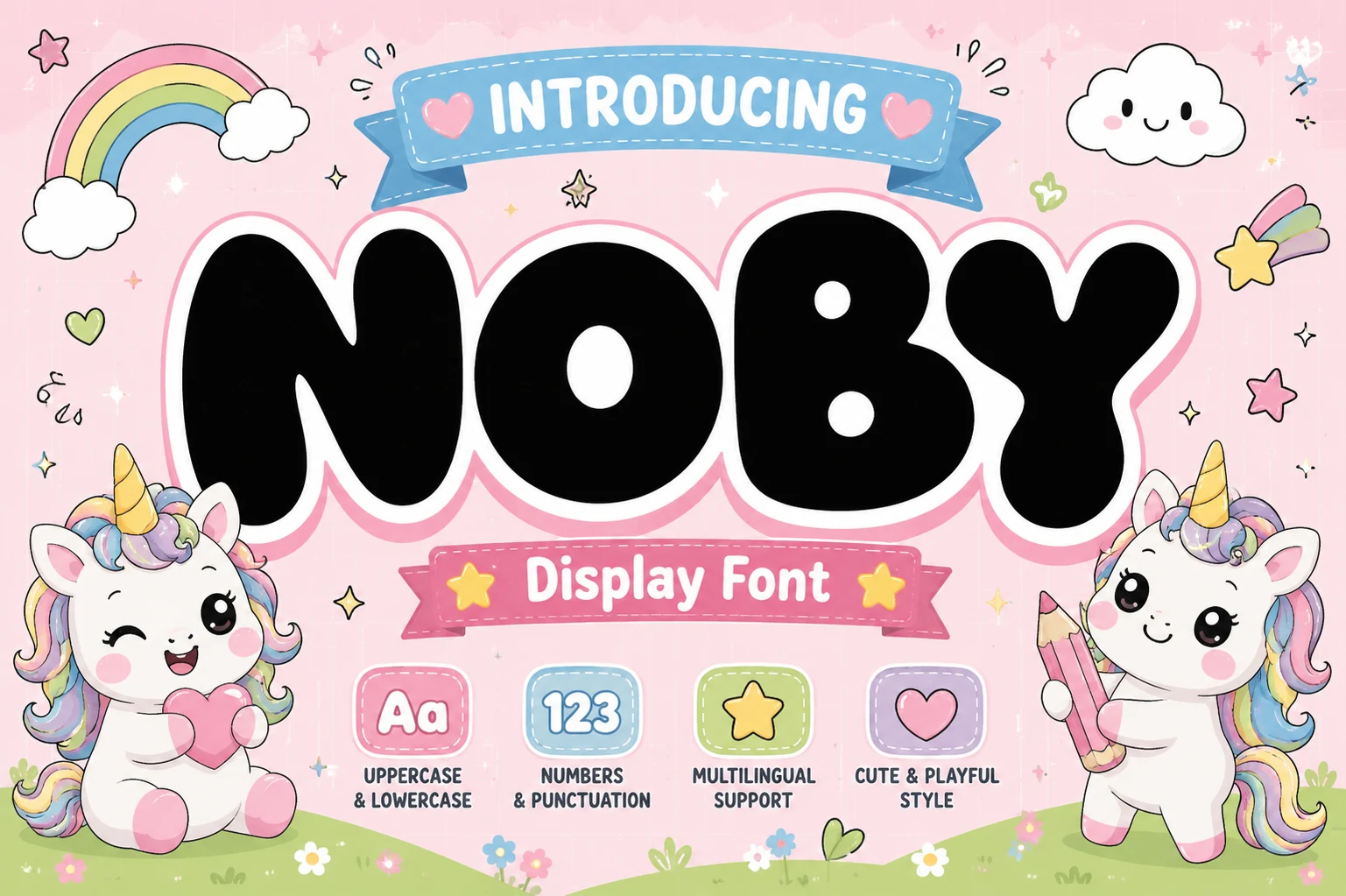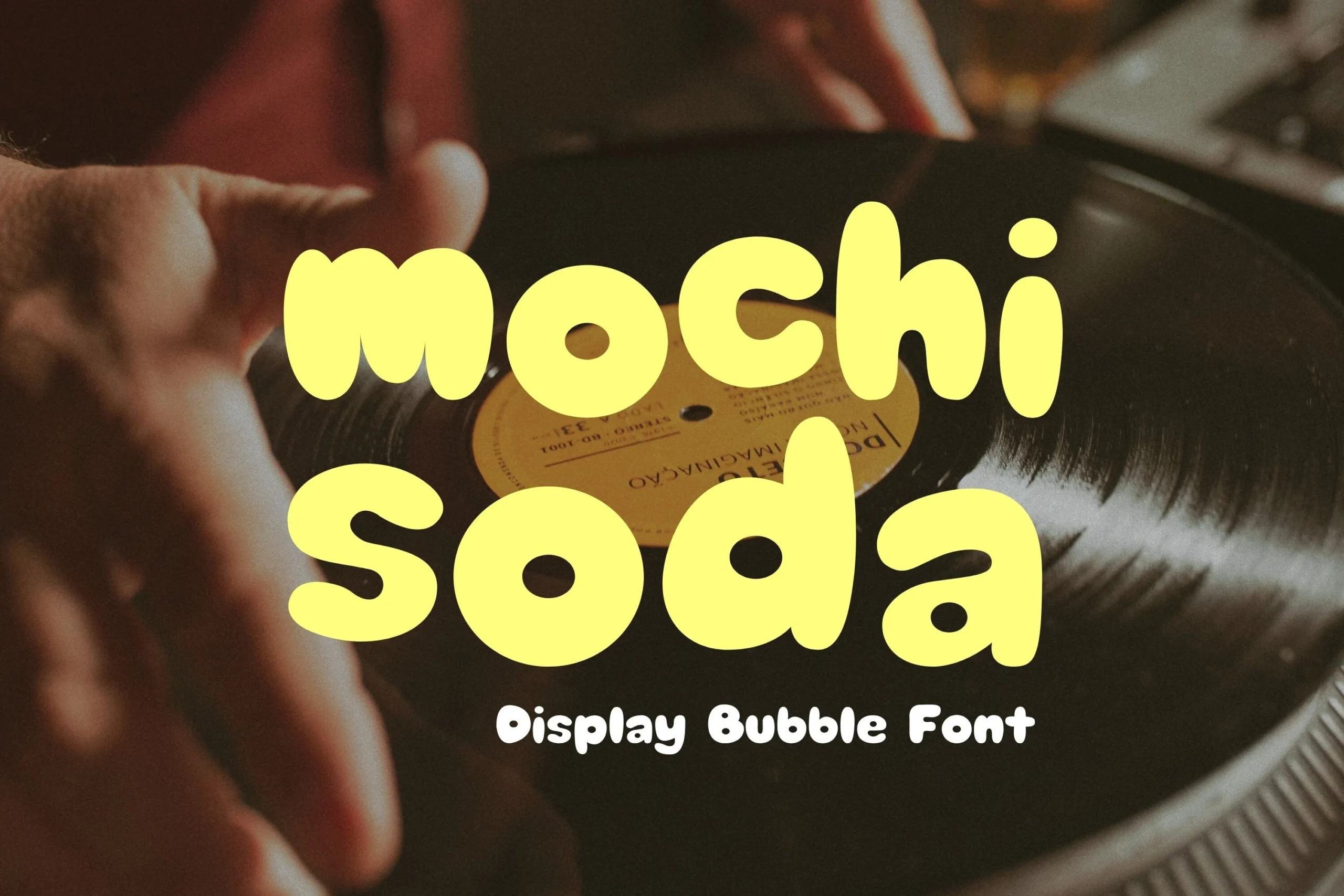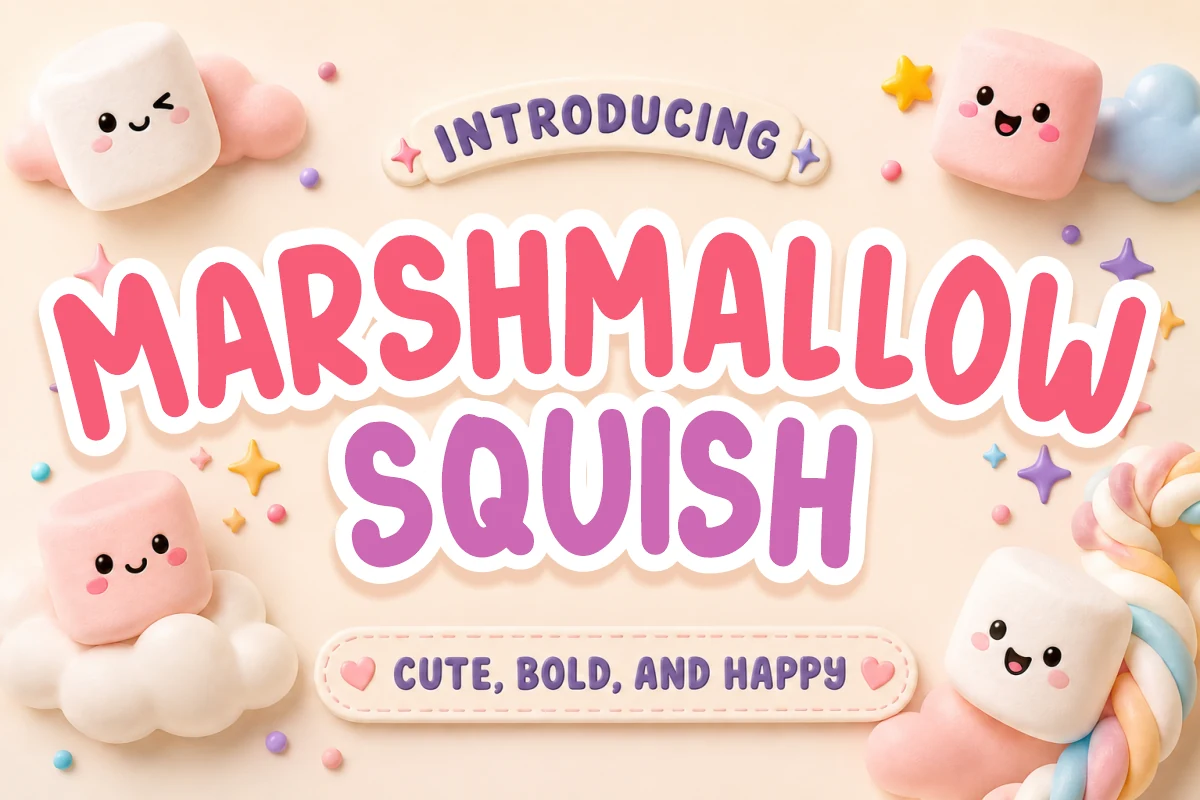
27 Creative Kawaii Fonts for 2026
This collection of Kawaii Fonts brings together cheerful bubble lettering, friendly handwritten styles, and playful character-inspired displays. Whether you are designing stickers, packaging, children’s projects, branding, social media graphics, invitations, or short headline text, these fonts add warmth and personality. Explore the categories below to find a soft, chunky, casual, or novelty style that suits your next creative project.
Rounded Bubble Kawaii Fonts
These bold, inflated letterforms use soft curves and chunky proportions to create instantly cheerful displays for stickers, packaging, labels, branding, and children’s designs.
Tofu Twist Font
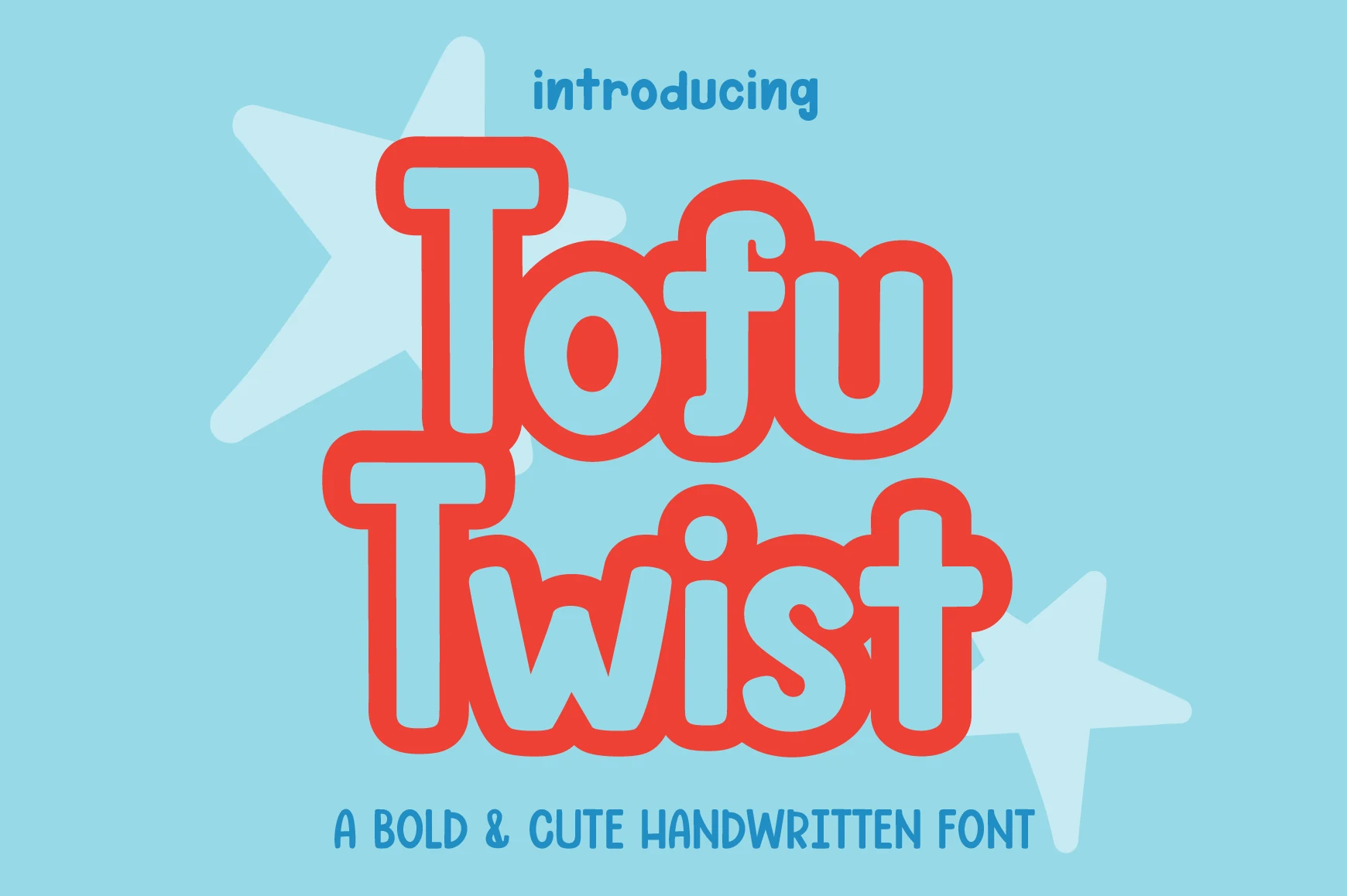
Best For: stickers, packaging, children’s designs, cute designs
Tofu Twist is a chunky handwritten display face with thick, monoline strokes, rounded terminals, and sturdy slab-like ends. Its upright forms and friendly proportions keep letters clear while giving titles, stickers, and children’s designs a cheerful, tactile presence.
That bubbly character makes it a natural fit for Kawaii Fonts collections, especially on short phrases, packaging, and social media graphics. Keep tracking slightly open so the heavy shapes do not crowd one another, and use a clean, contrasting background when the lettering needs to read quickly.
Pipo Soda Font
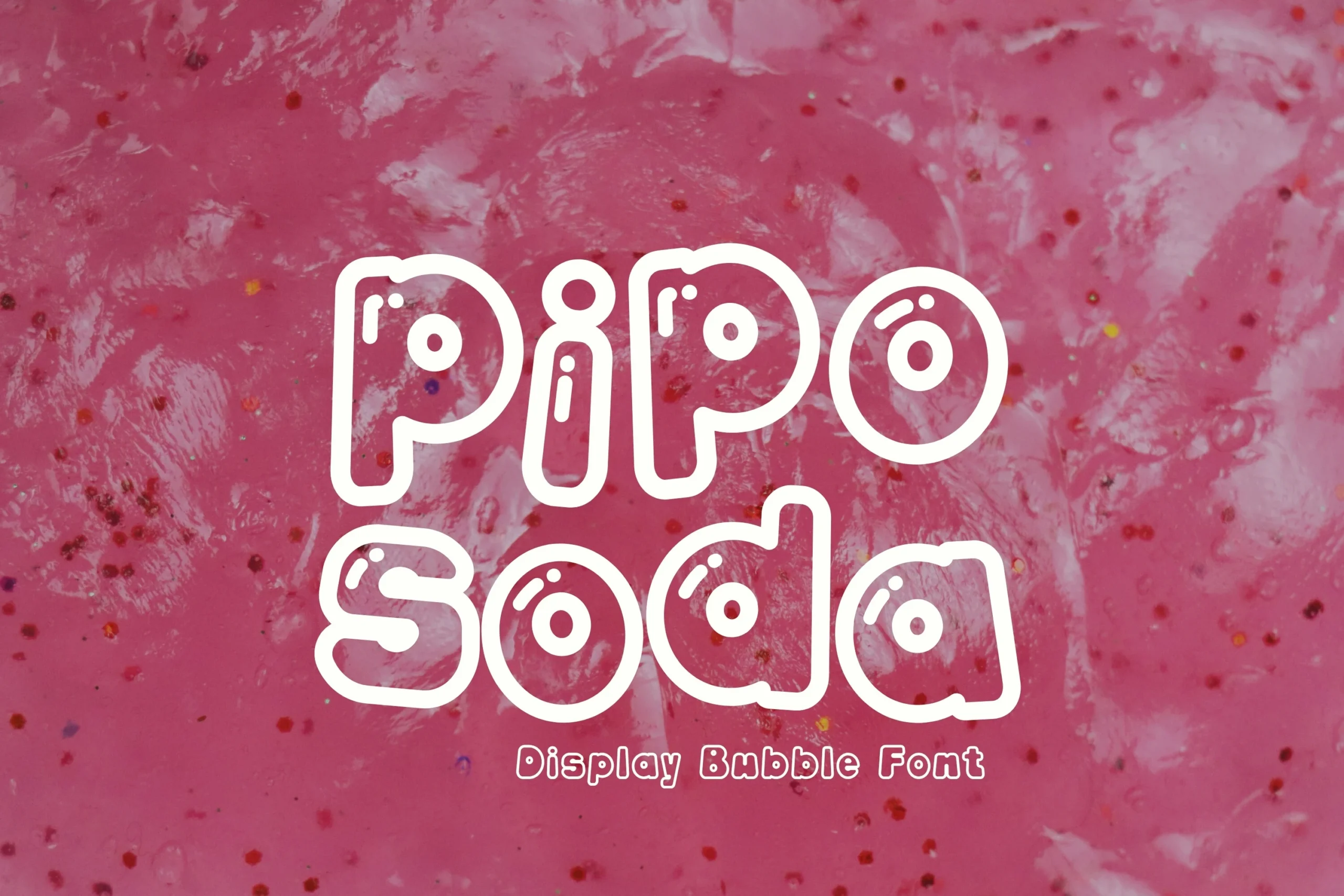
Best For: cute designs, playful designs, stickers, product labels
Pipo Soda is a cheerful bubble display font built from thick, monoline letterforms with soft rounded corners and pronounced circular cutouts. Its upright, disconnected shapes create a youthful cartoon feel, making it a natural fit within Kawaii Fonts and other playful visual styles.
The generous interior spaces keep short words clear at display sizes, though dense paragraphs may feel crowded. Use it for titles, stickers, or labels, and pair it with a lighter supporting sans serif to create a clear title hierarchy without competing with its rounded forms.
Bubblu Font
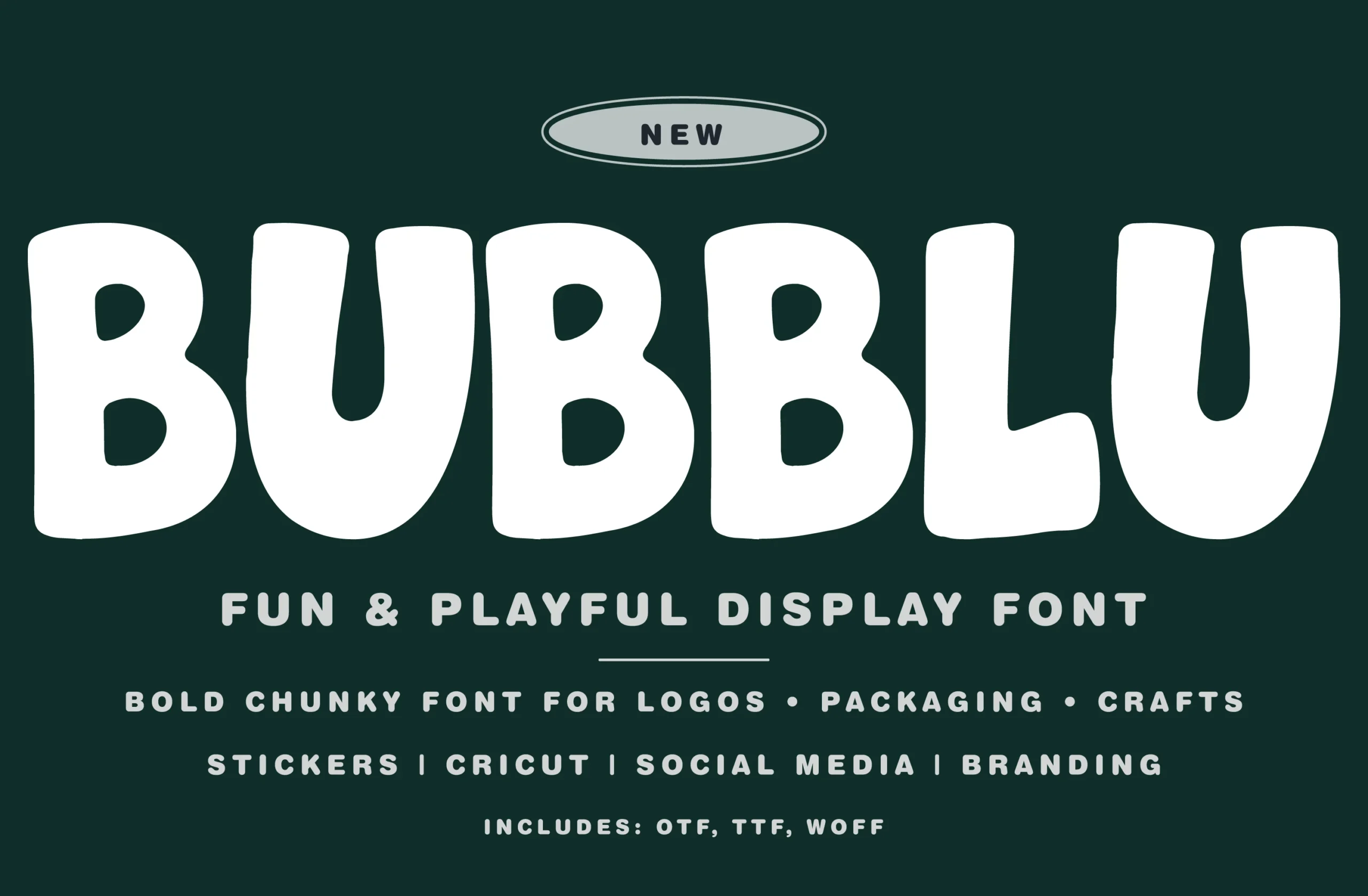
Best For: logos, branding, packaging, product labels
Bubblu Font turns thick, monoline strokes into wide, chunky lettering with soft rounded terminals and irregular organic curves. Its friendly bubble shapes and steady vertical structure give headlines a playful presence, making it a natural fit among Kawaii Fonts for cheerful visual work.
The heavy forms stay clear at display sizes, while their broad proportions can crowd narrow layouts. Keep tracking slightly open and use a lighter, clean supporting weight to preserve hierarchy; for small text, choose simpler lettering so Bubblu remains the visual anchor.
Kawaii Ghost Font
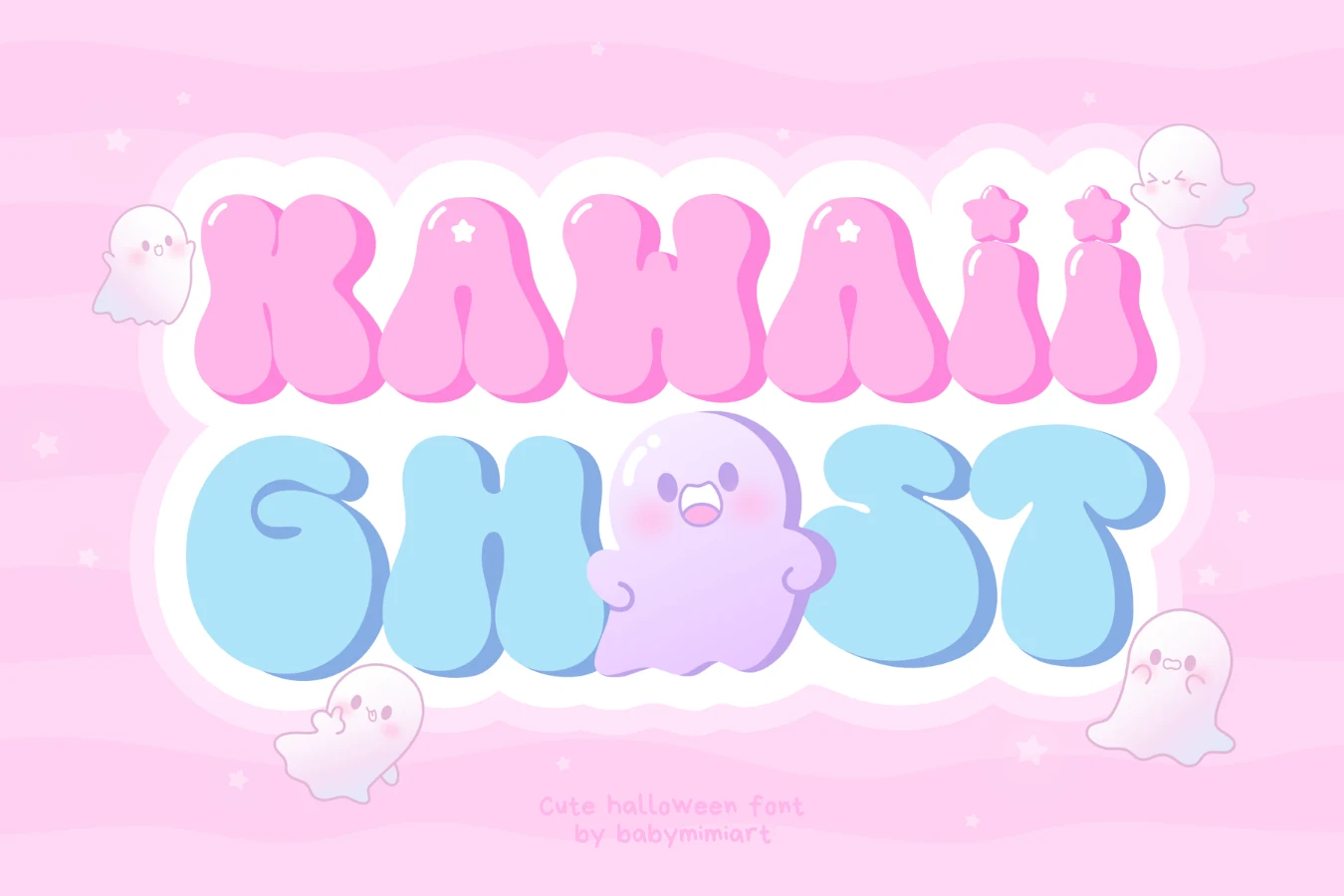
Best For: cute designs, children’s designs, logos, stickers
Kawaii Ghost Font captures the playful appeal associated with Kawaii Fonts through thick, rounded bubble letters and soft, irregular contours. The uniform weight keeps the shapes bold, while star-shaped accents on the lowercase i add a whimsical detail suited to children’s books, friendly logos, and greeting cards.
Its inflated forms are clearest at display sizes, as the limited interior space can reduce readability when scaled down. Use modestly open tracking and strong background contrast, especially for short headings, stickers, packaging, or other compact compositions.
Kai Font
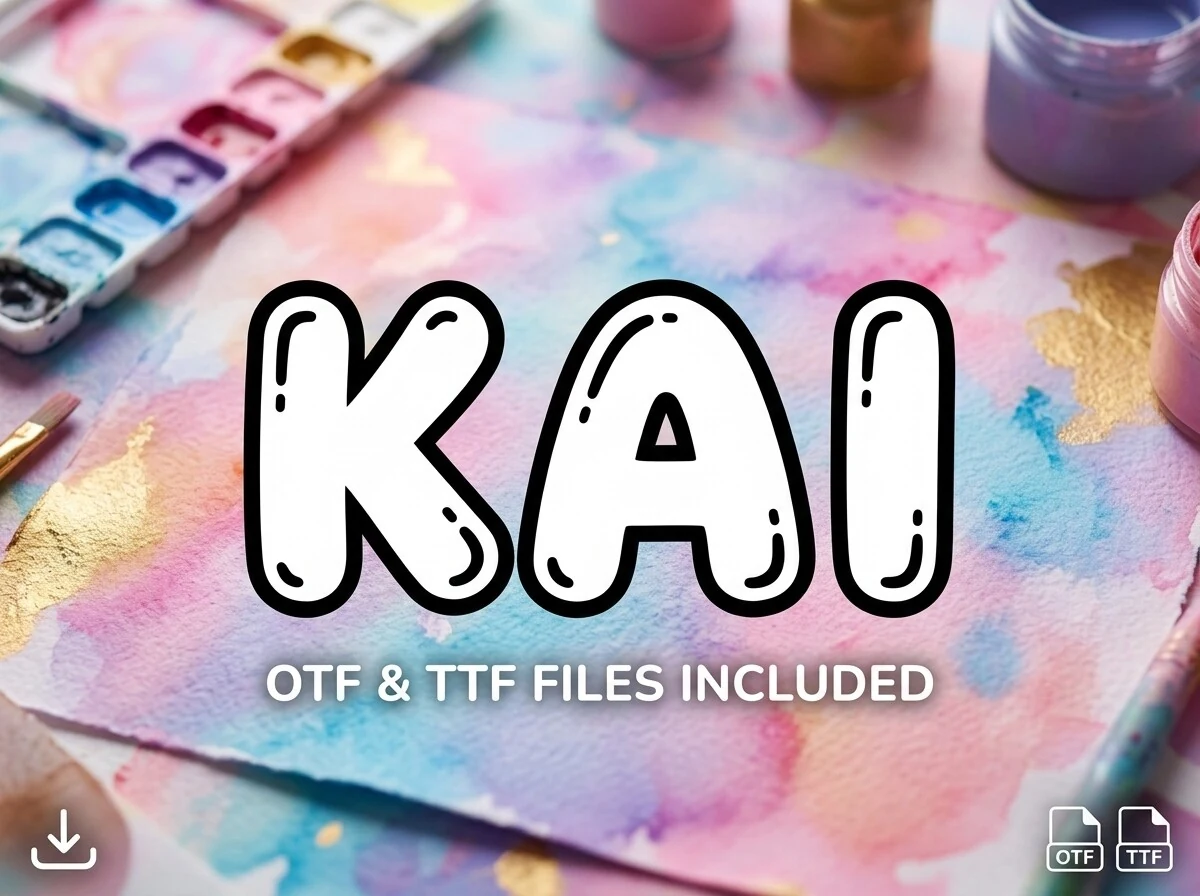
Best For: children’s designs, playful designs, social media graphics, display text
Kai Font turns lettering into rounded, inflated shapes with a monolinear weight, soft corners, inward-curving stems, and bold outer and inner outlines. Glossy balloon-like highlights add a cheerful 3D effect, while the disconnected characters keep the style casual and cartoon-inspired. It fits naturally among Kawaii Fonts when a design needs a friendly, youthful voice.
The heavy silhouette stays clear at display sizes, but its thick outline can crowd counters when reduced. Keep tracking slightly open and reserve Kai for short titles, labels, or prominent headers; use a lighter supporting text weight to maintain hierarchy and preserve contrast against the background.
Cute Pop Font
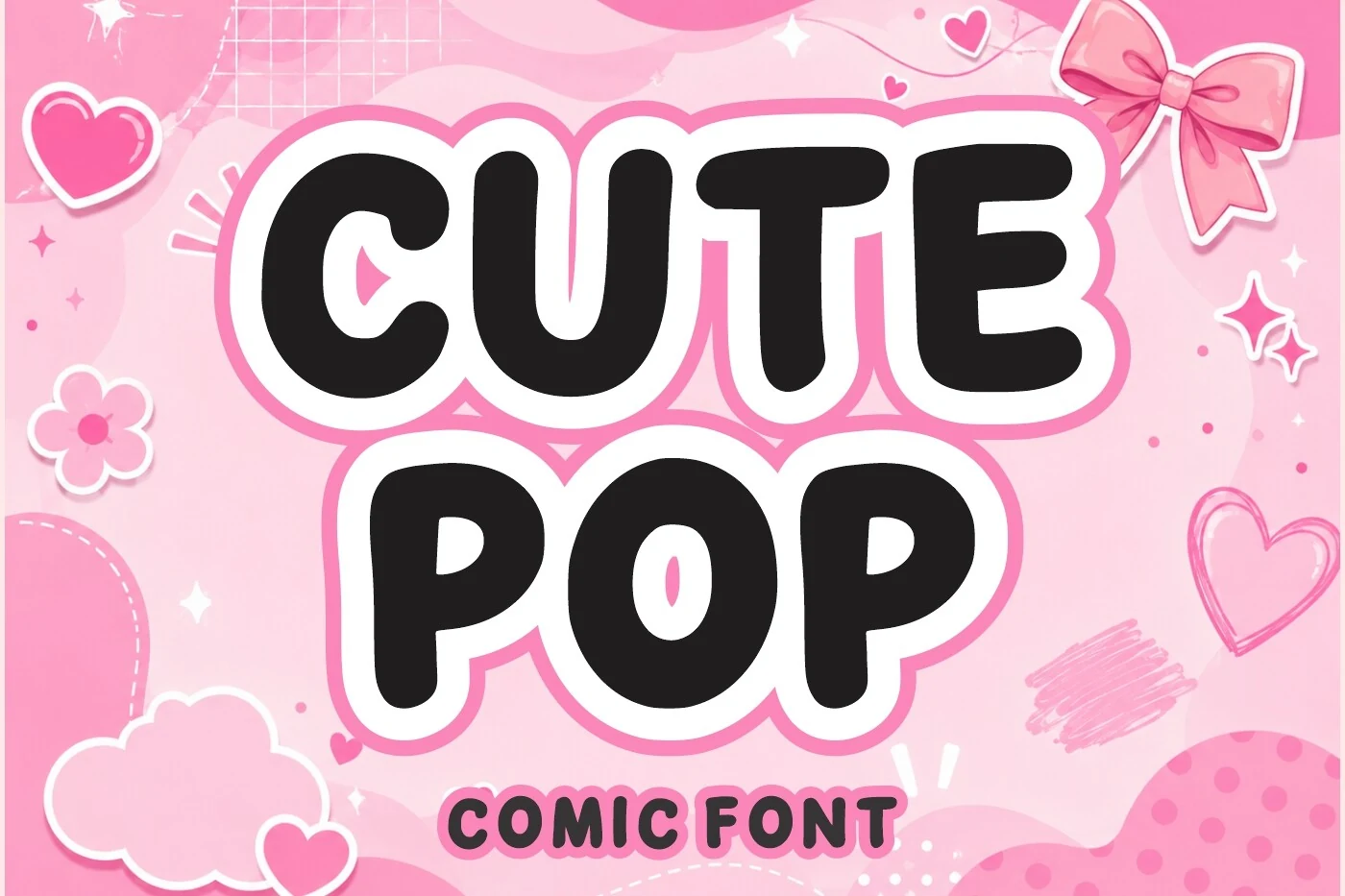
Best For: stickers, children’s designs, packaging, playful designs
Cute Pop Font brings a cheerful comic feel through bold, monoline letterforms, rounded terminals, and compact proportions. Its soft, bubbly shapes stay clear in headlines and short phrases, while the upright structure gives the lettering a steady, friendly rhythm.
A natural fit for Kawaii Fonts projects, it works especially well in stickers, children’s designs, packaging, and playful branding. The close spacing can look crowded at small sizes, so add a little tracking when setting longer words or placing the type over detailed backgrounds.
Gum Drop Pop Font
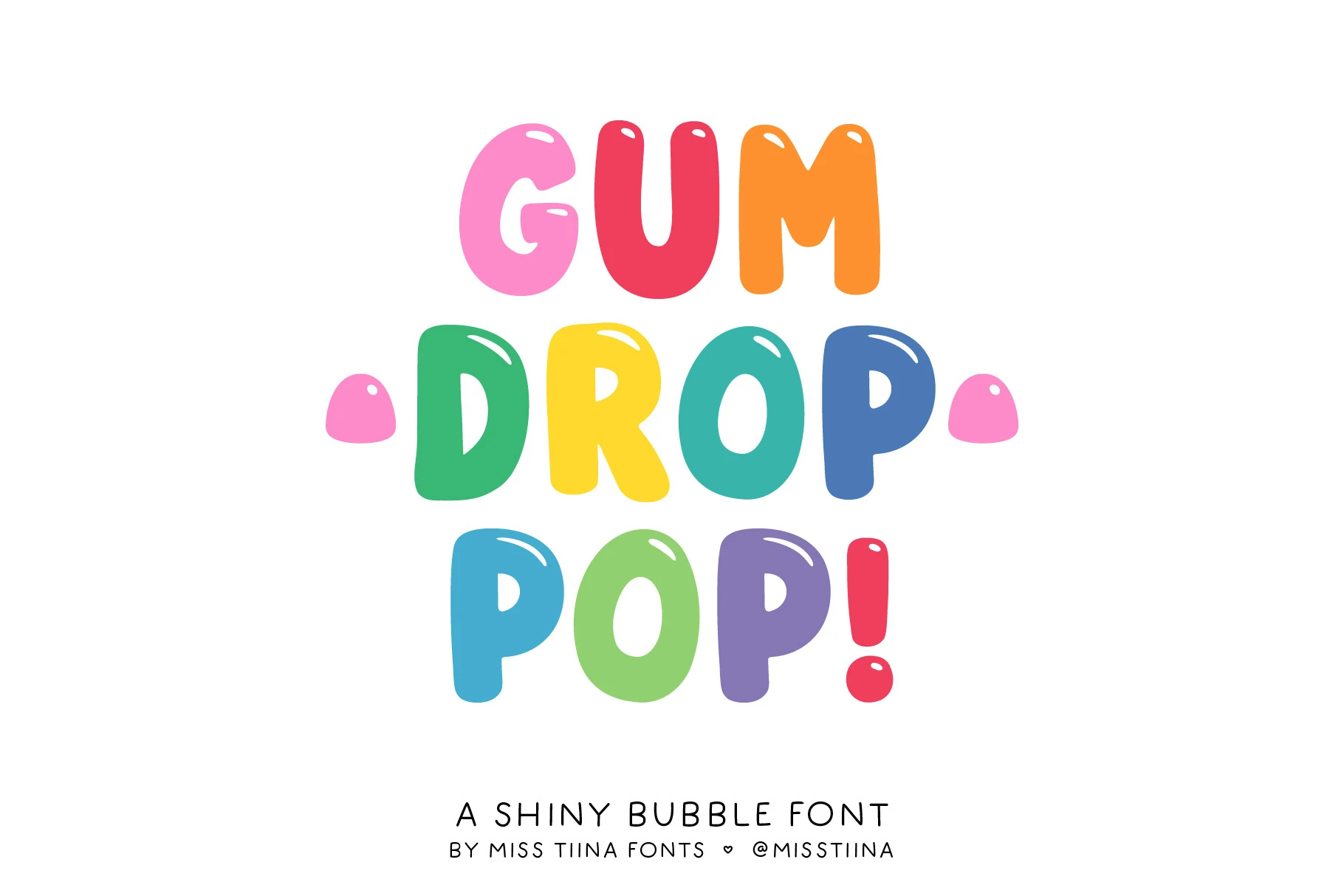
Best For: playful designs, cute designs, stickers, packaging
Gum Drop Pop turns lettering into chunky, inflated shapes with soft curves, closed apertures, and a steady monoline weight. Glossy internal highlights reinforce the candy-like volume, while the disconnected letters keep the mood cheerful and informal—an exuberant entry among Kawaii Fonts.
Conclusion
Choose the rounded bubble category for bold, sugary display lettering, the handwritten group for a warmer personal feel, or the characterful styles for more distinctive visual personality. Together, these Kawaii Fonts make it easy to match playful typography with everything from children’s designs and packaging to stickers, branding, and social graphics.